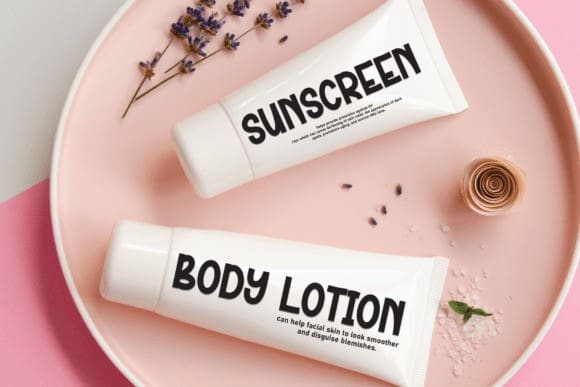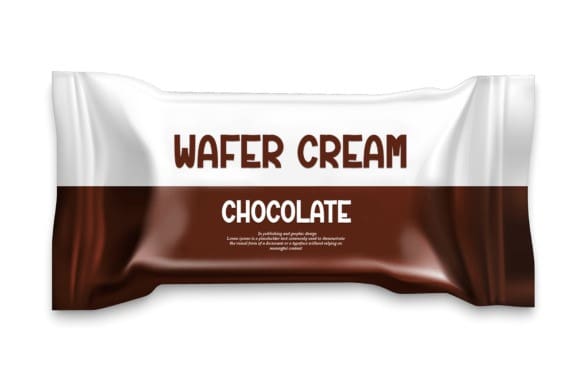
Zoo Carnival Font
Zoo Carnival Font, is a sweet and friendly handwritten display font. Cute and fun, this font is ideal for writing wedding invitations, cards, or any other design that might need a fun touch!